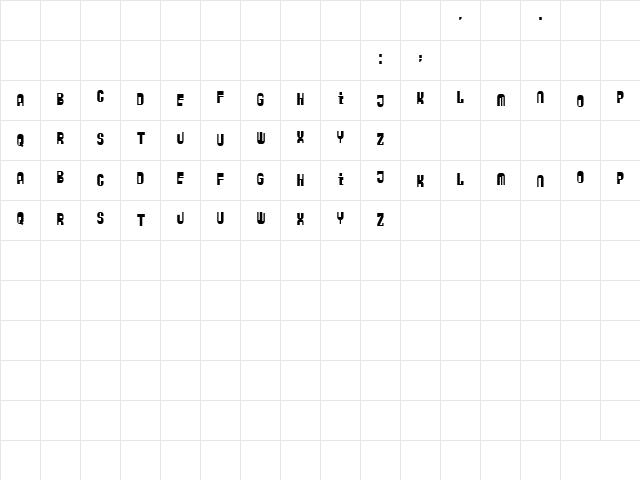
ZyberBob Regular
Design Context for ZyberBob Typeface
ZyberBob is a composed and adaptable typeface that performs quietly and consistently across a wide range of design contexts.